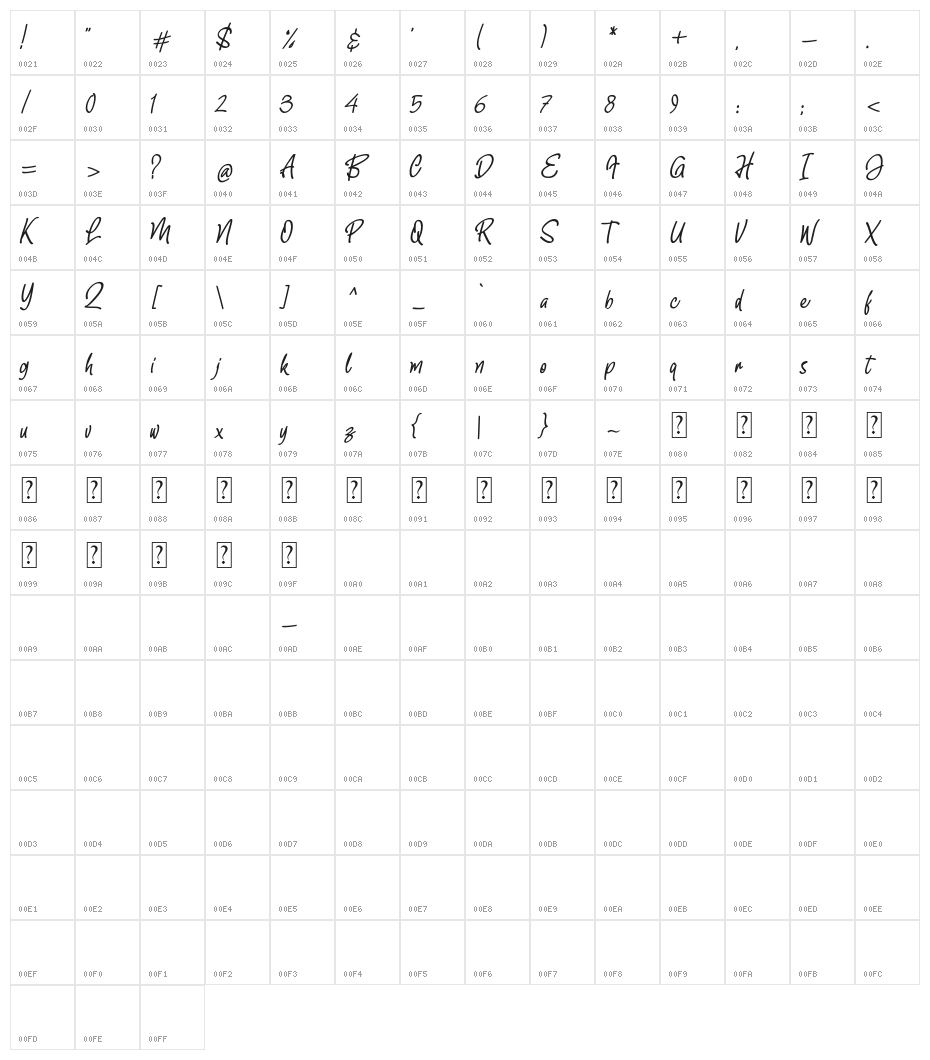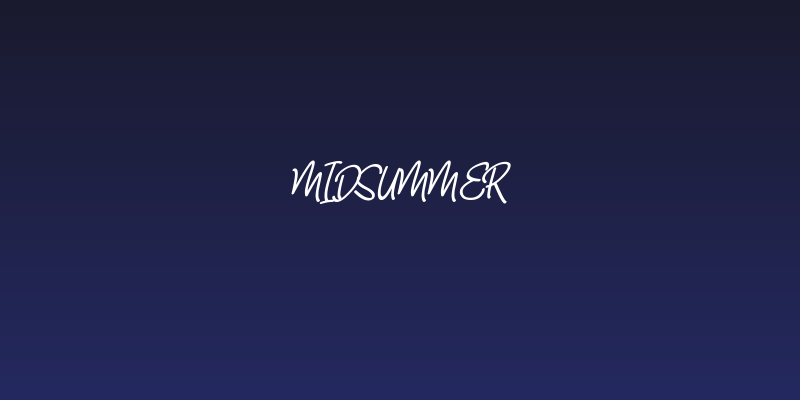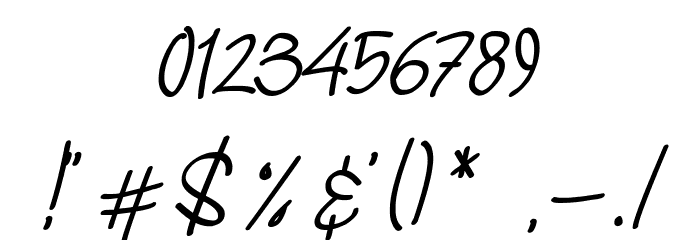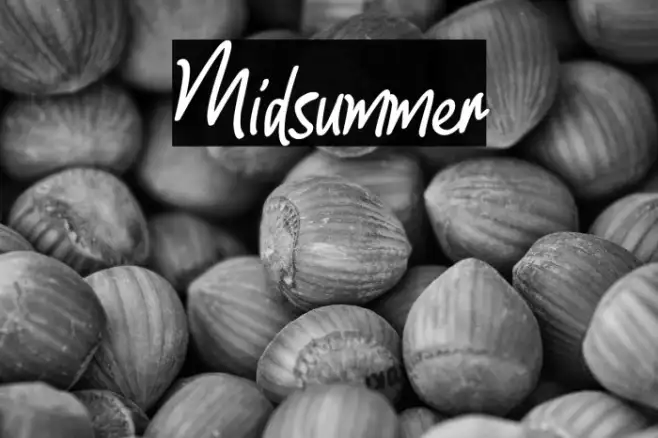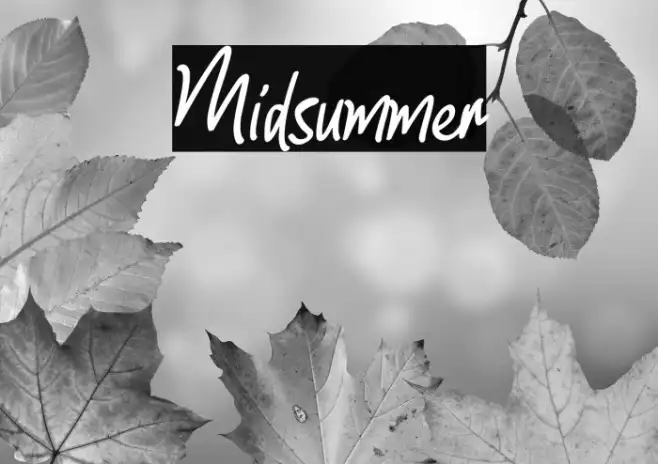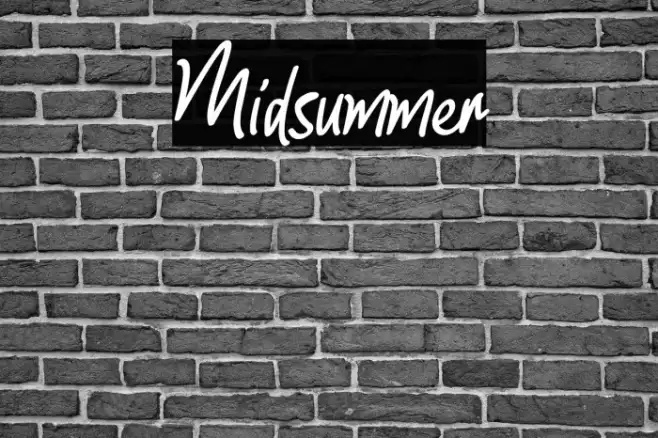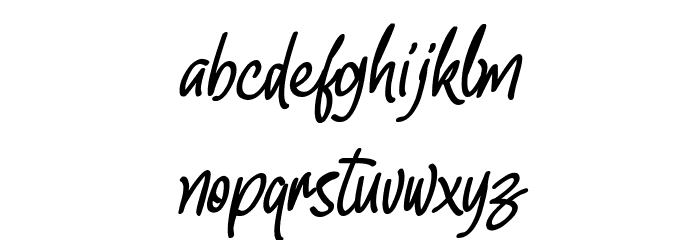
Midsummer Font
Midsummer Description
This font features a dynamic and fluid handwritten style, characterized by its elegant and flowing script. The letters are connected with smooth, sweeping curves that give it a sense of motion and grace. The uppercase letters are bold and prominent, while the lowercase letters maintain a consistent flow, enhancing readability. The numbers and special characters are designed to match the overall aesthetic, providing a cohesive look. This font exudes a sense of creativity and personal touch, making it ideal for projects that require a humanistic and artistic feel.